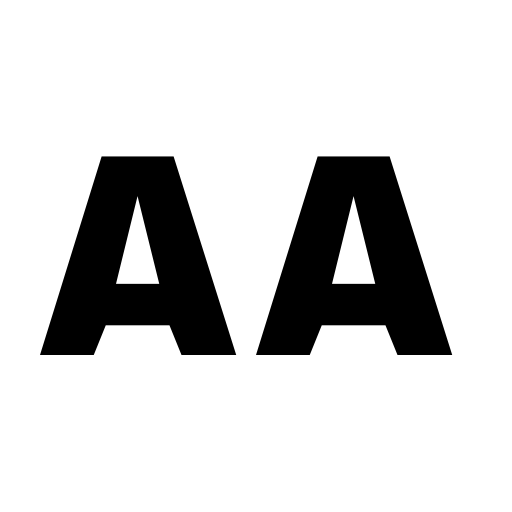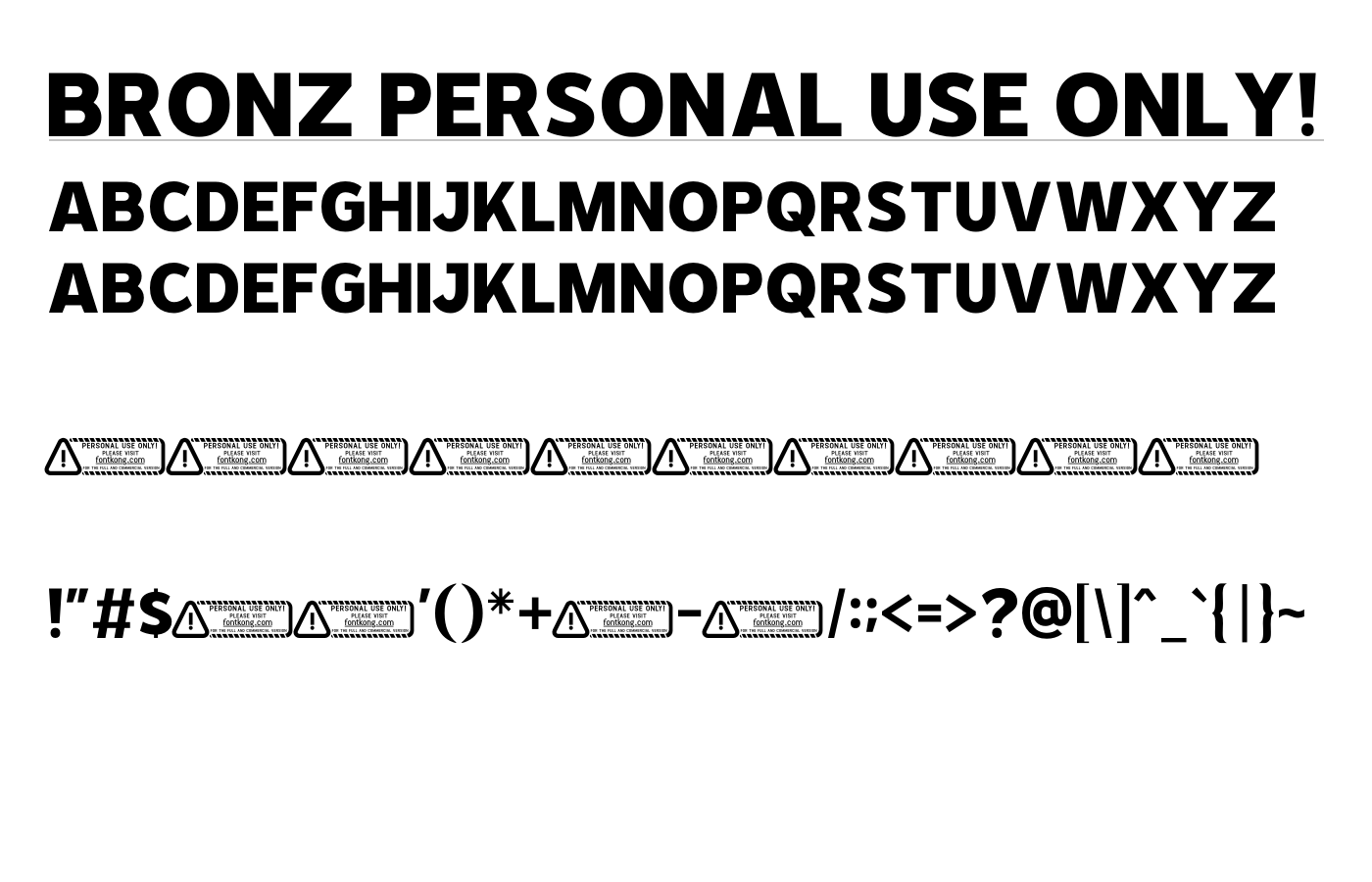
Bronz is a bold, sans serif typeface with a strong, solid presence and clean geometric shapes. Its heavy weight and upright structure make it perfect for commanding attention in headers, logos, and branding where a confident, modern look is desired. This font excels in designs that need clarity and impact, giving off a straightforward and powerful vibe.
Bronz PERSONAL USE ONLY! Font
About Bronz PERSONAL USE ONLY! Font